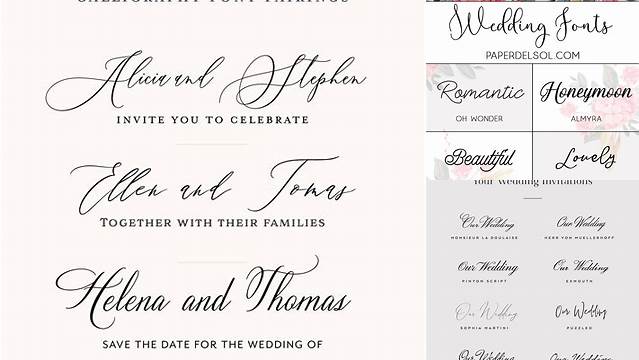
Elegant Free Script Fonts For Wedding Invitations
Top Free Script Font Choices for Wedding Invites
Let's kick things off with some of the best free script fonts out there. These fonts are not only beautiful but also versatile, working well for various wedding themes, from classic to modern. Keep in mind that while these fonts are free for personal use, you might need a commercial license for business purposes. Always double-check the license before you start using them for your wedding stationery. First up, we have Dancing Script. This font is a classic for a reason. Its elegant and flowing strokes mimic handwriting beautifully. It's perfect for invitations that need a touch of grace and sophistication. The best part? It's incredibly readable, which is super important. You don't want your guests squinting to figure out the details! It's great for the names of the bride and groom, or for a key phrase. Next, we have Great Vibes. If you're after a more playful yet still elegant look, Great Vibes is your go-to. It has a lovely bouncy feel that adds a touch of whimsy to your invitations. Use this font to add personality to your invitations. Then there's Allura. Allura offers a more modern take on the script font. It's clean, stylish, and perfect for contemporary weddings. It pairs well with clean sans-serif fonts, which is perfect for body text. Playlist Script is another winner. It has a slightly more casual feel, which is ideal if your wedding has a relaxed or rustic vibe. This one feels like a handwritten note. Lastly, check out Alex Brush. This font is a delicate, flowing script, perfect for adding a touch of romance. It's an excellent choice for the names of the bride and groom, or for special details that you want to highlight. Remember to download these fonts from reliable sources to avoid any security risks and always test them out with your invitation wording to make sure they fit your vision. Now go forth and make some beautiful wedding invitations!
Matching Script Fonts with Wedding Themes
Choosing the right font is only half the battle; the font needs to jive with your wedding theme! Think of your font as an outfit for your invitation, and your theme as the occasion. A classic wedding calls for classic fonts. Imagine a traditional, formal affair with an elegant script font like Dancing Script or Alex Brush. The refined strokes and flowing lines of these fonts instantly convey sophistication. Pair these with a simple sans-serif font for the body text, and you've got a timeless invitation. For a rustic or boho wedding, go for fonts with a more relaxed, handwritten feel. Playlist Script and fonts with a similar aesthetic are perfect. They add a touch of charm and warmth that complements the natural, earthy vibe of your theme. You can incorporate elements like watercolor backgrounds or floral illustrations to enhance the rustic feel. Modern weddings often benefit from clean and contemporary fonts. Allura is a great choice for a sleek, minimalist invitation. These fonts are a good fit if you're planning a chic, urban wedding with geometric patterns and bold colors. If you want to create a vintage-inspired invitation, choose fonts that mimic the styles of the past. Think about art deco or vintage typewriter fonts. These fonts add a touch of nostalgia and personality to your invites. Make sure to complement your font choice with appropriate design elements. The color palette, paper stock, and embellishments should all work together to create a cohesive look. If you are using the font on a specific part of the invitation, make sure that it is consistent with the rest of your theme.
Script Fonts for Different Wedding Styles
Let's break it down further, guys! For a formal wedding, elegance is key. Think Dancing Script or Alex Brush. These fonts have a beautiful flow and sophistication. Pair them with classic paper stocks like ivory or cream and consider an embossed design for a touch of luxury. For a rustic wedding, you want something a little more relaxed and organic. Playlist Script or fonts with a similar feel are perfect. Think about incorporating natural elements like kraft paper, twine, or watercolor backgrounds. For a boho wedding, go for fonts that are free-flowing and artistic. Fonts like Playlist Script or script fonts with a slightly uneven appearance will look great. Combine this with floral illustrations, feathers, or dreamcatcher motifs for an eclectic, free-spirited feel. For a modern wedding, keep it clean and chic. Allura or similar fonts with a clean, contemporary look are ideal. Combine this with bold colors, geometric patterns, and minimalist design elements. For a vintage wedding, choose fonts that evoke a sense of nostalgia. Art deco fonts, vintage typewriter fonts, or script fonts with a retro feel will work well. Consider using sepia tones, aged paper textures, or vintage illustrations to complete the look. Ultimately, the best font is the one that reflects your style and the overall atmosphere of your wedding. Don't be afraid to experiment and try out different fonts to see what works best.
Pairing Script Fonts with Other Fonts
Okay, so you've found your perfect free script font. Awesome! Now comes the crucial part: pairing it with other fonts. The right pairing can make your invitation sing, while a poor one can make it look cluttered and confusing. First, you want to create contrast. If your script font is very ornate, choose a simple sans-serif font for the body text. This creates a visual balance, making your invitations easy to read. Think of it this way: your script font is the star, and your sans-serif font is the supporting cast. Make sure that your sans-serif font is clear and readable, even at smaller sizes. Fonts like Helvetica, Open Sans, or Lato are great choices. You can also try pairing your script font with a serif font. However, you'll want to be more careful with this combination. Make sure that the serif font is not too similar to your script font, otherwise, your invitation may look a bit overwhelming. Fonts like Times New Roman and Garamond work well in this case. Next up is consistency. Limit the number of fonts you use on your invitation to two or three, tops. This prevents your invitation from looking too busy. The fonts should complement each other and create a cohesive look. Don't forget to consider the weight and style of the fonts. If your script font is bold, you may want to choose a lighter weight font for the body text. If your script font is elegant, you might want to pair it with a classic serif font for the headings. Make sure to play around with different font pairings. Try out different combinations and see what works best for your invitation. Consider using a tool to visualize your font pairings. Many websites offer free font pairing guides. And finally, make sure to get feedback from others. Ask your friends, family, or wedding planner what they think of your font pairings.
The Best Font Combinations for Wedding Invites
Let's talk about the dream teams of font pairings! Combining fonts is an art in itself. Here are a few winning combinations to inspire you. Dancing Script paired with Open Sans is a classic. The elegance of the script font is nicely balanced by the clean lines of the sans-serif. This pairing is versatile and works for many wedding styles. Try Great Vibes with Montserrat. The bouncy, playful vibe of Great Vibes goes well with the modern and clean lines of Montserrat, which creates a unique look. This combo suits a modern wedding. Consider Allura with Lato. The sleek, modern look of Allura pairs well with the clean, straightforward look of Lato. This combination is ideal for a contemporary wedding. Using Playlist Script with Roboto is a great option if you're going for a relaxed, rustic vibe. The slightly handwritten feel of Playlist Script is nicely complemented by the clean lines of Roboto, which creates a comfortable, inviting feel. Then we have Alex Brush with a serif font like Playfair Display. This pairing is very elegant. The delicate flow of Alex Brush pairs beautifully with the slightly more refined lines of Playfair Display, making it perfect for a classic wedding. Remember, the key to a good font pairing is balance and contrast. Choose combinations that complement each other without being too similar.